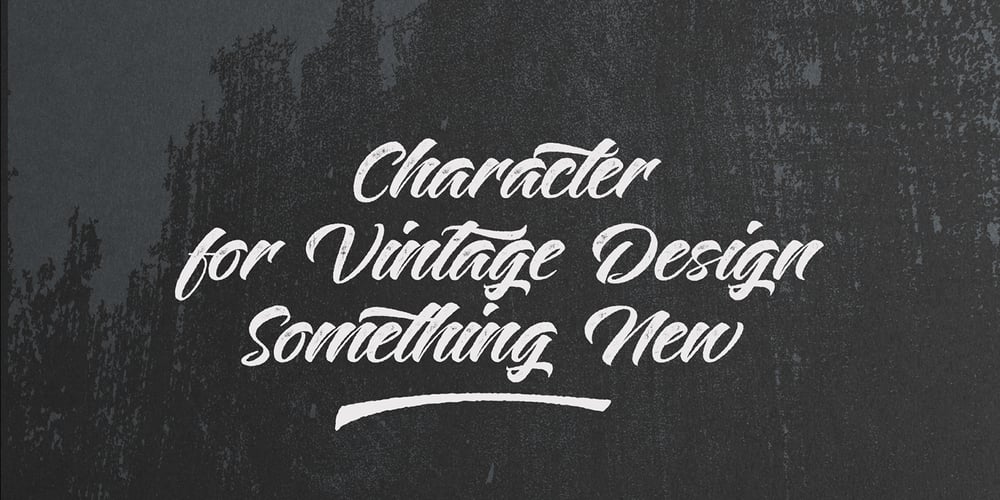
Plants Font Family was designed by Nava Abel and published by Artisan Studio. Plants contains 2 styles and family package options. Plants Clean & Rough is 2-style family. The brush script is beautiful and unique; it is a model of modern calligraphy typefaces, in combination with a calligraphy writing style. Can be used for various purposes.such as headings, logos, wedding invitation, t-shirt, letterhead, labels, news, posters, badges etc. This font’s features are: – Contextual Alternates – Standard ligatures – Discretionary ligatures – Stylistic Alternates – Stylistic sets OpenType features can be accessed by using OpenType smart programs such as Adobe Illustrator and Adobe InDesign, Adobe Illustrator CS, CorelDraw X6-X7.